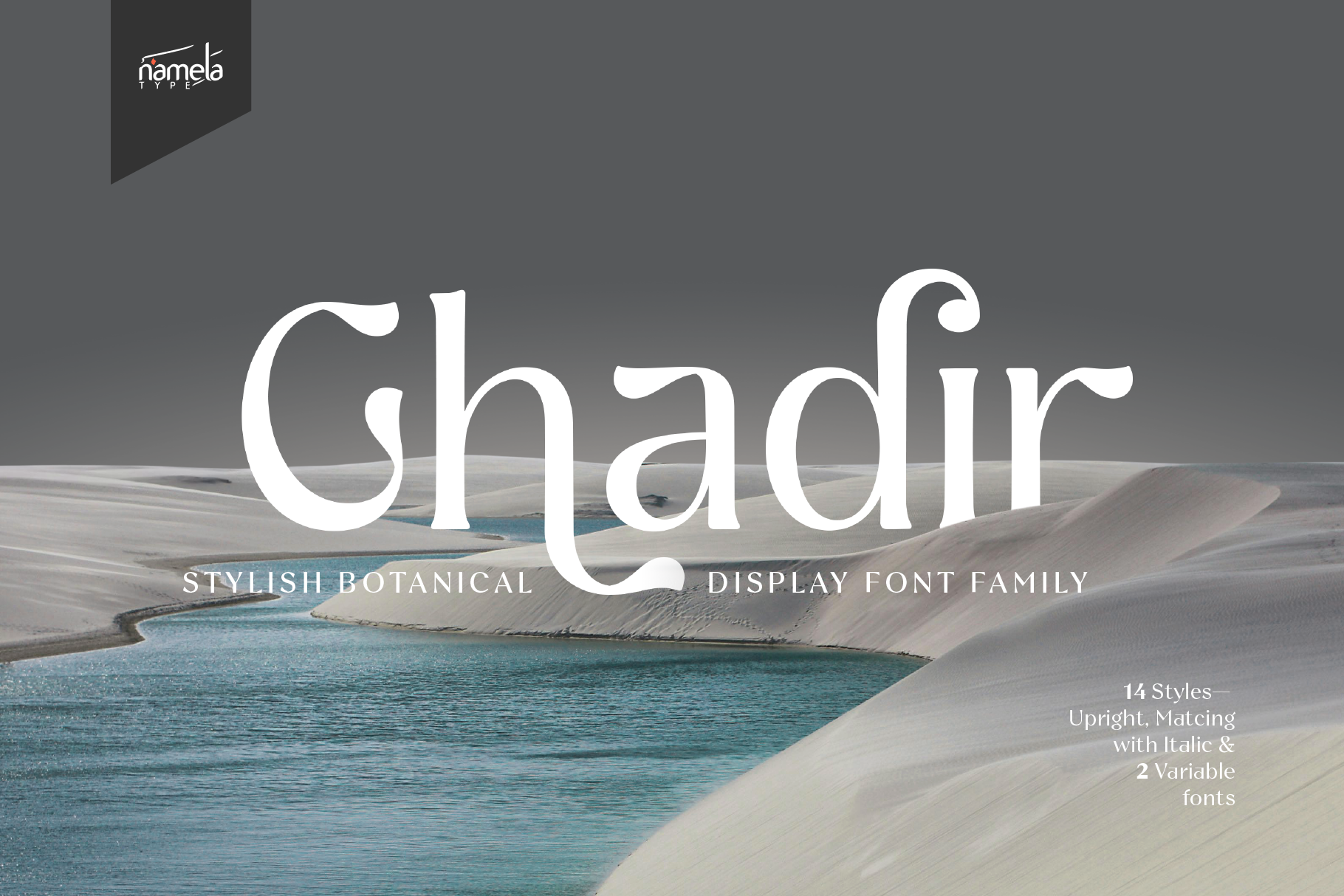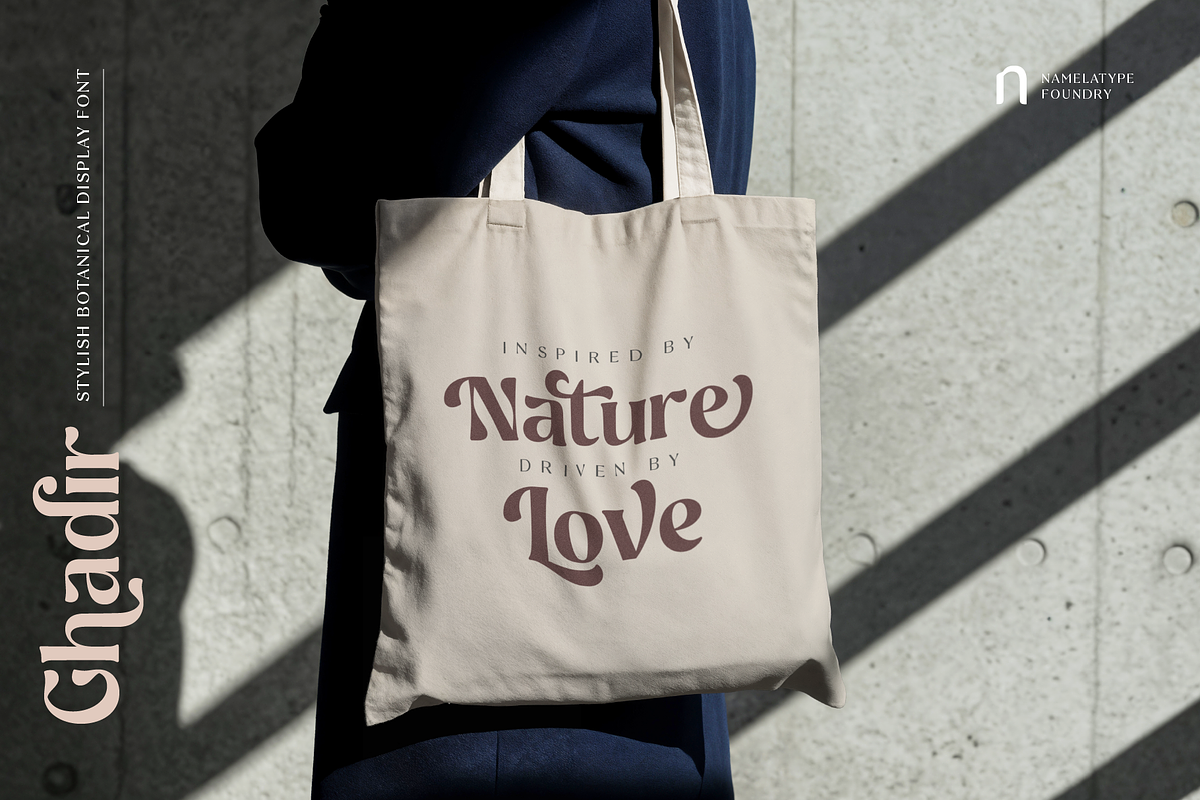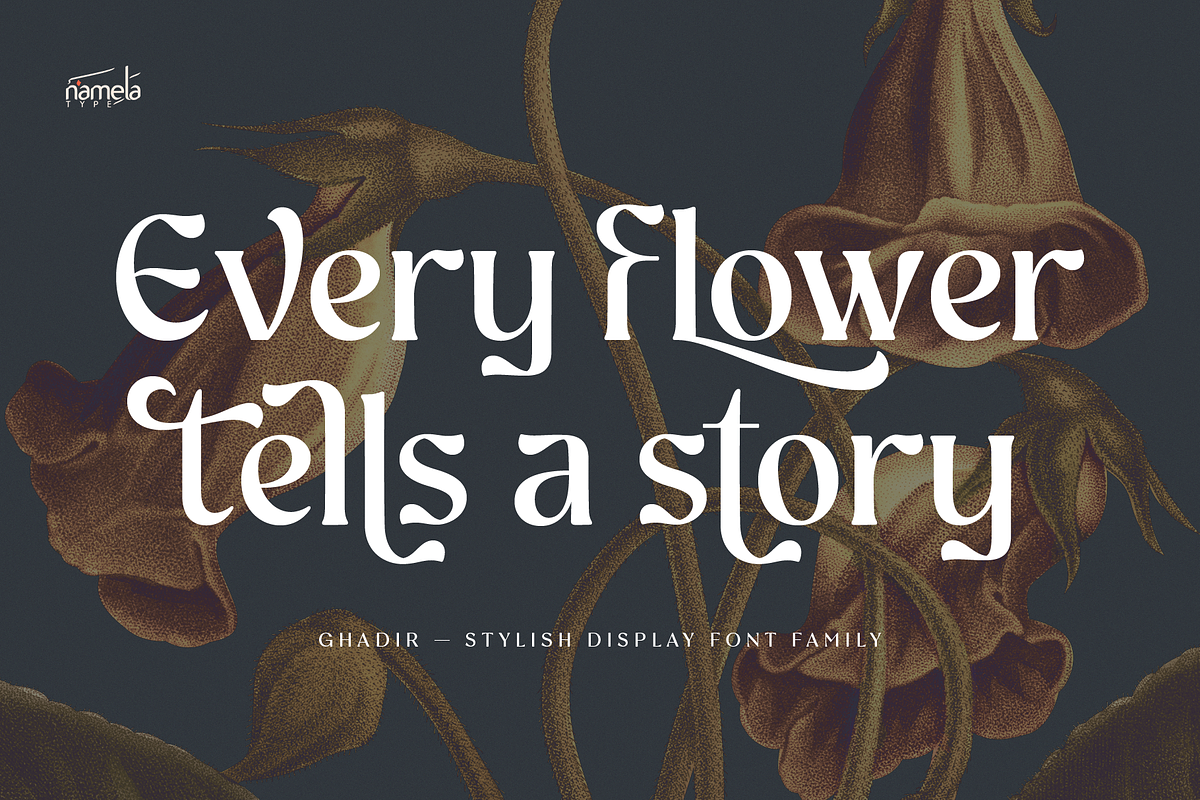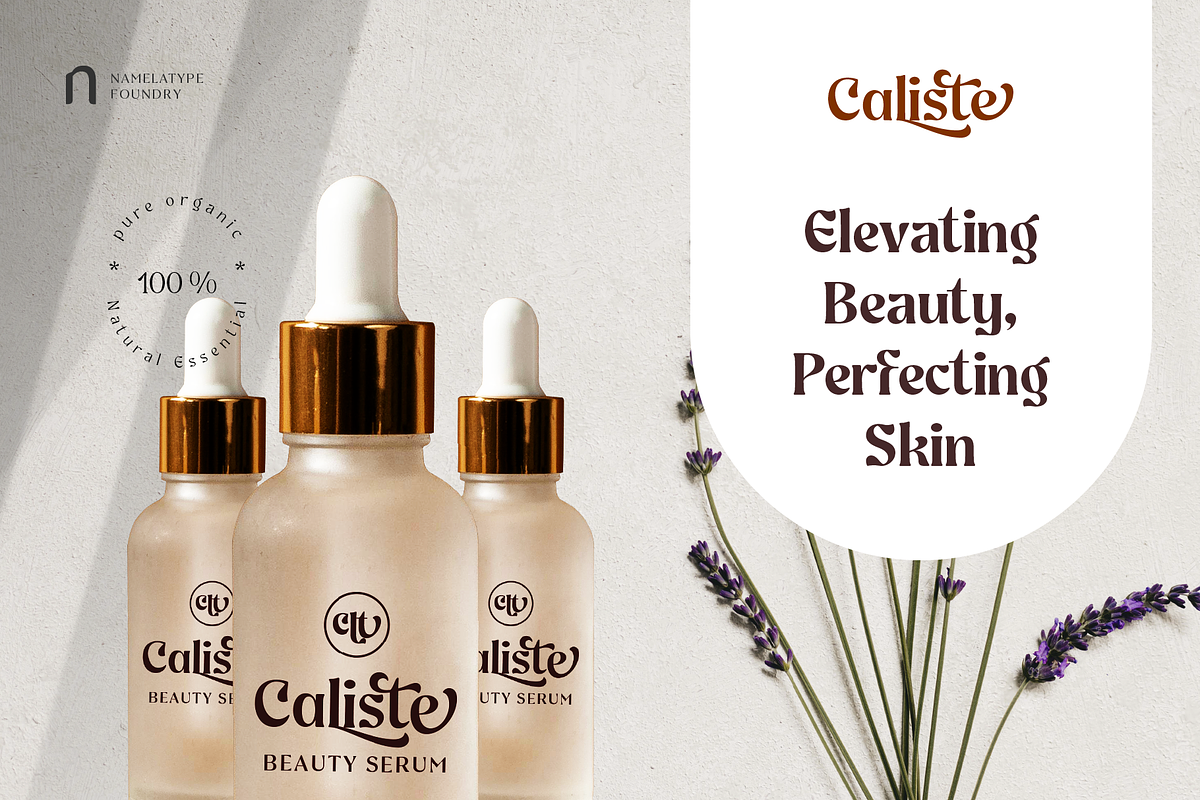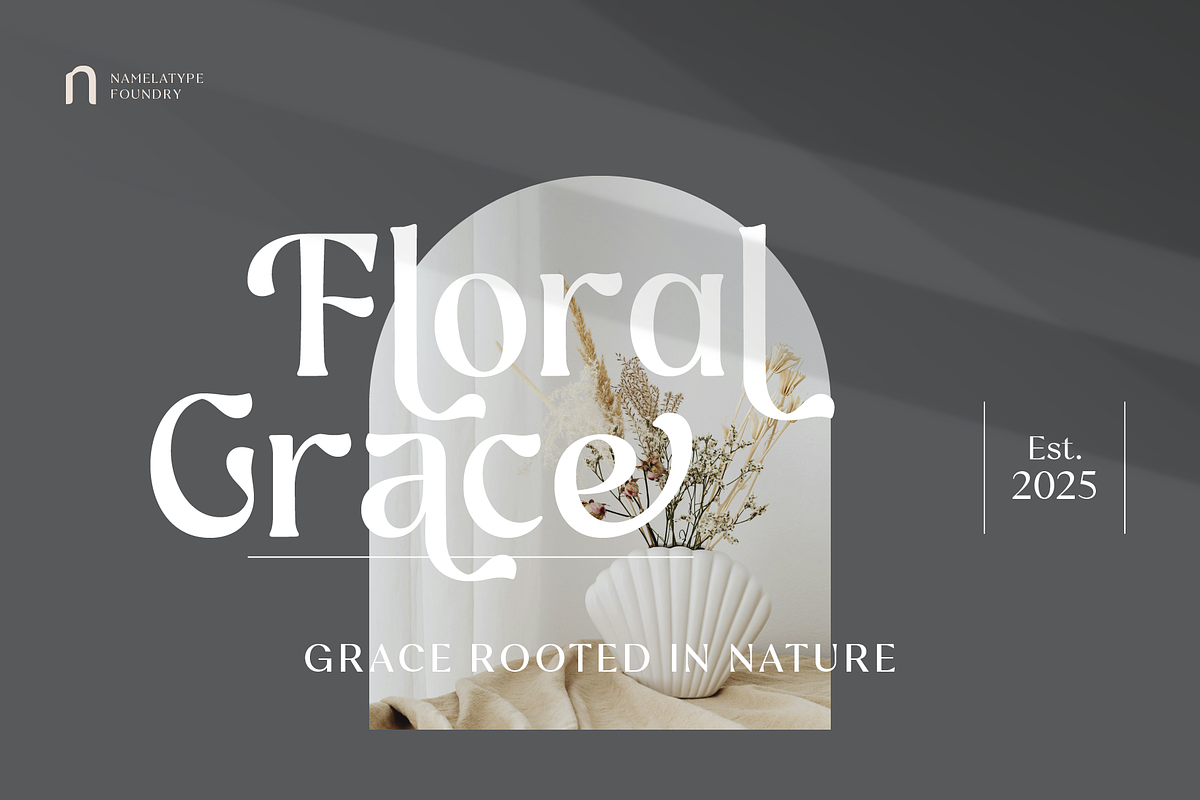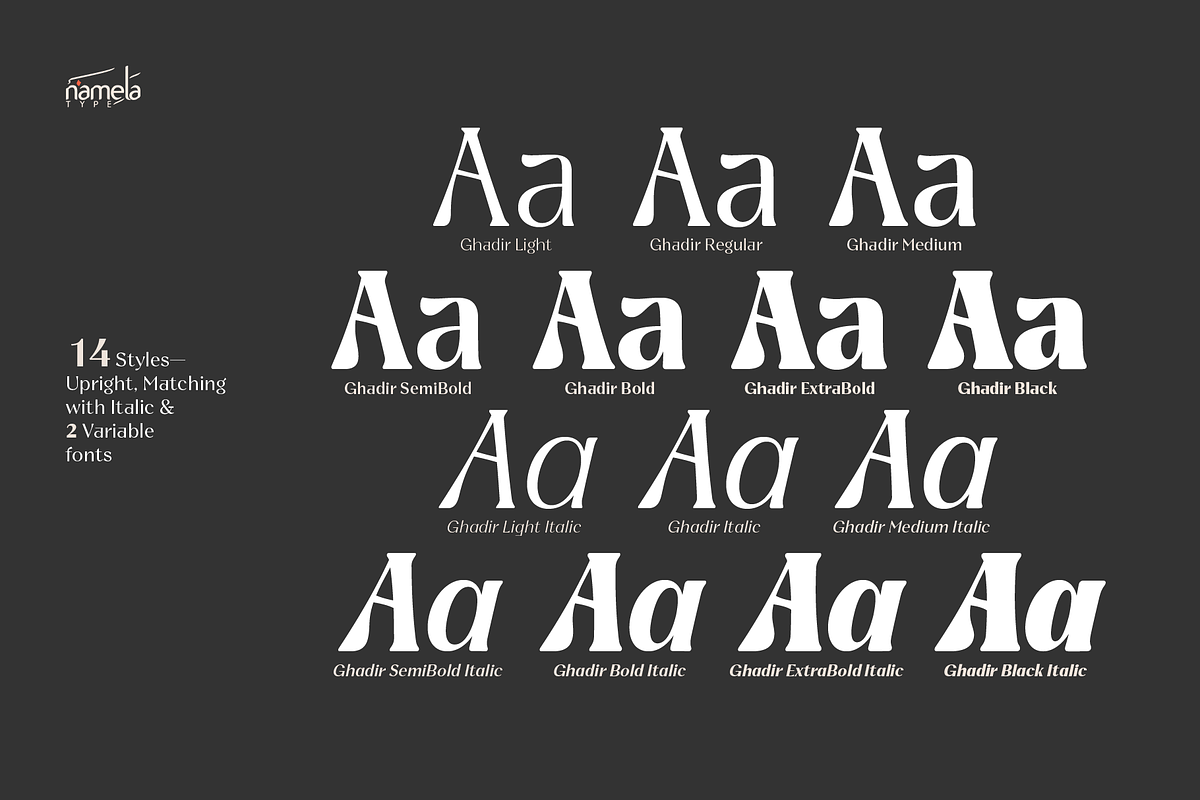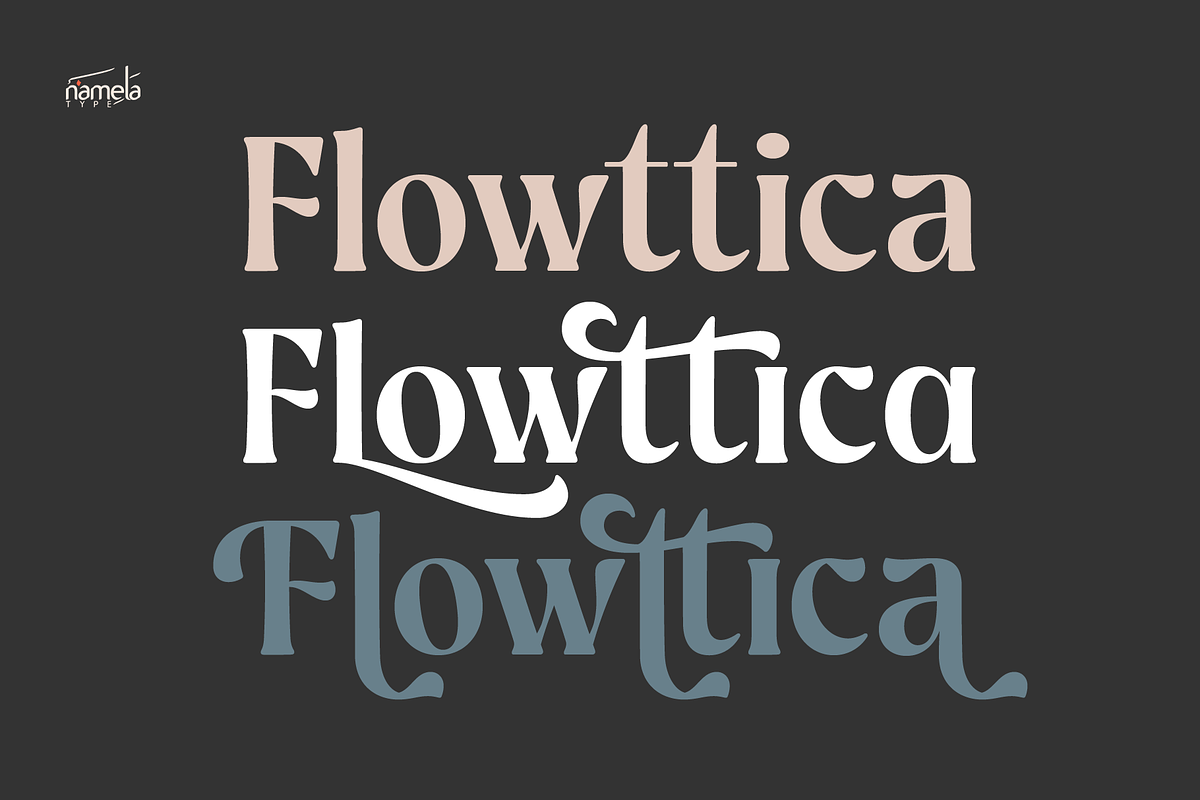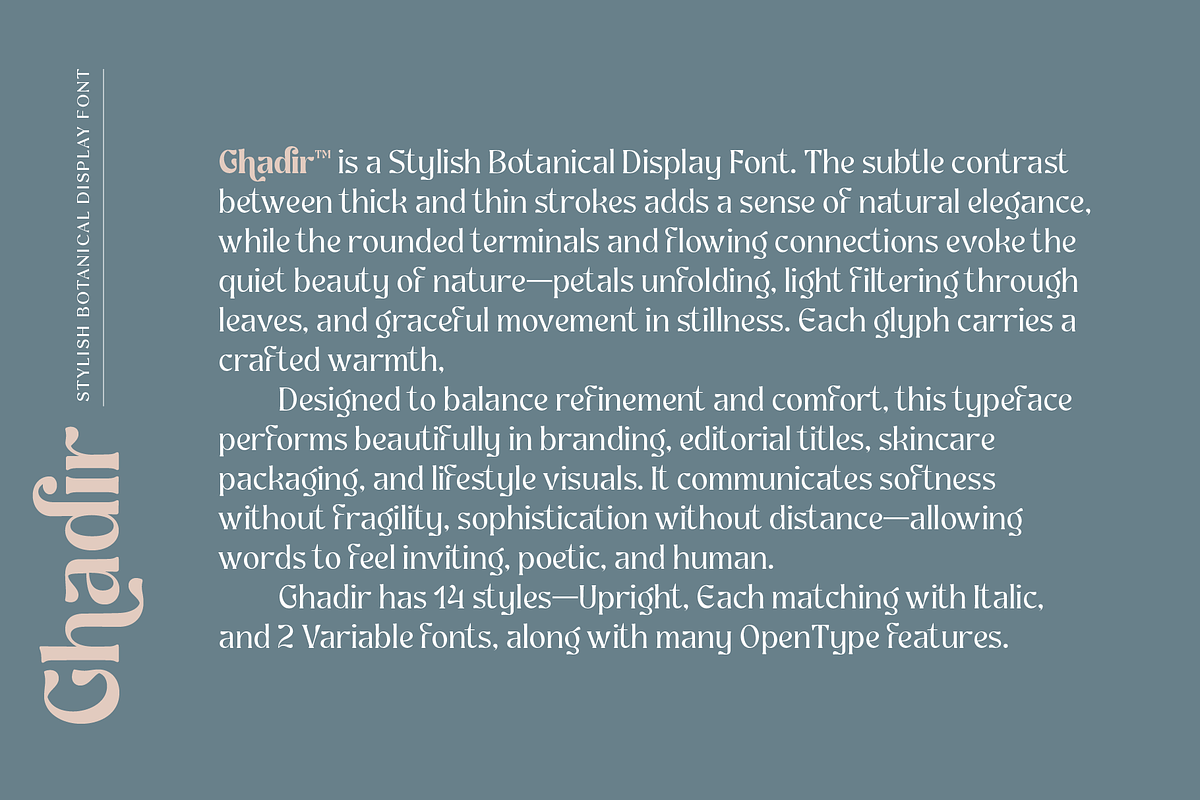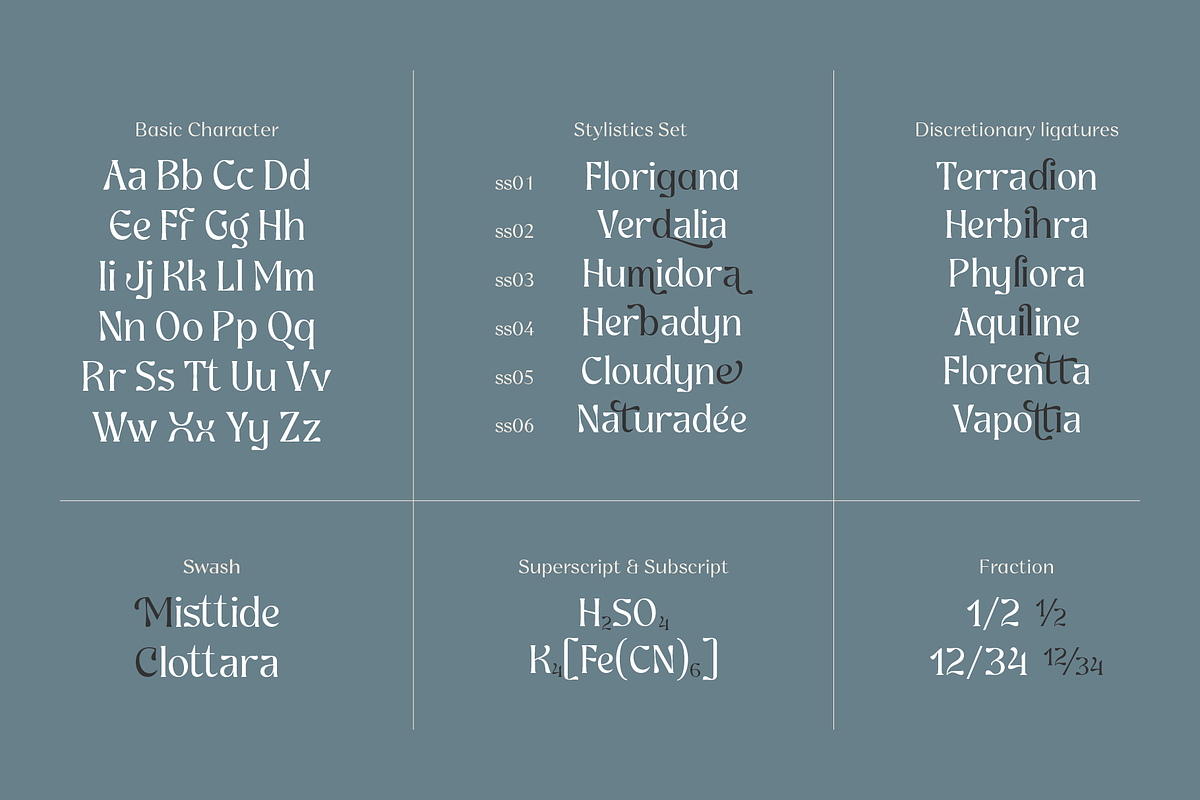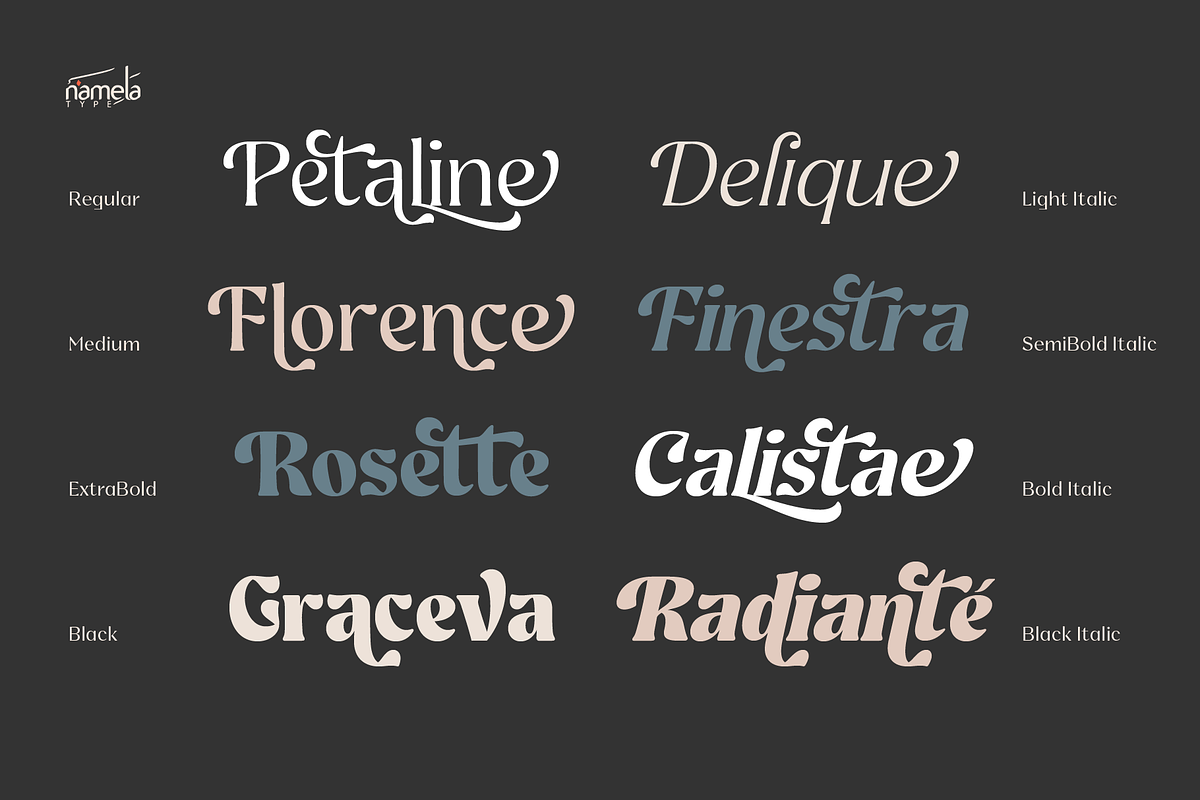
Ghadir, Botanical Display Font
Ghadir is a Stylish Botanical Display Font. The subtle contrast between thick and thin strokes adds a sense of natural elegance, while the rounded terminals and flowing connections evoke the quiet beauty of nature—petals unfolding, light filtering through leaves, and graceful movement in stillness. Each glyph carries a crafted warmth,
Designed to balance refinement and comfort, this typeface performs beautifully in branding, editorial titles, skincare packaging, and lifestyle visuals. It communicates softness without fragility, sophistication without distance—allowing words to feel inviting, poetic, and human.
Ghadir has 14 styles—Upright, Each matching with Italic, and 2 Variable fonts, along with many OpenType features.